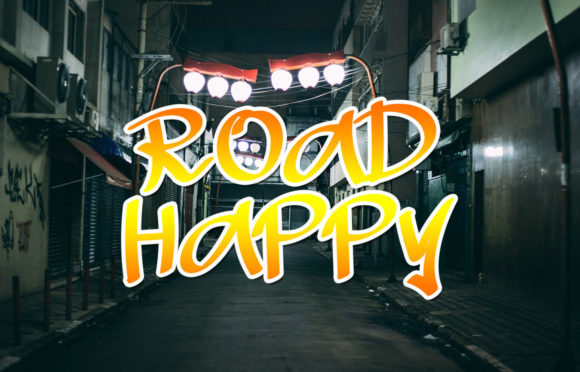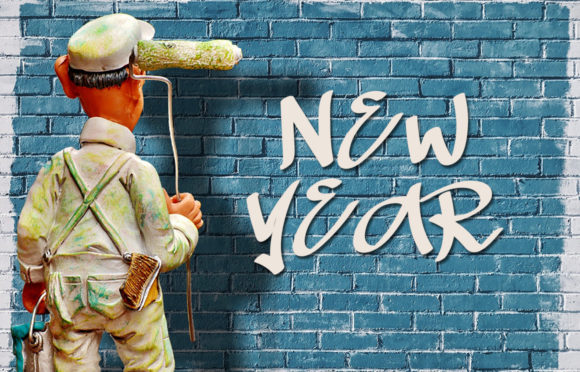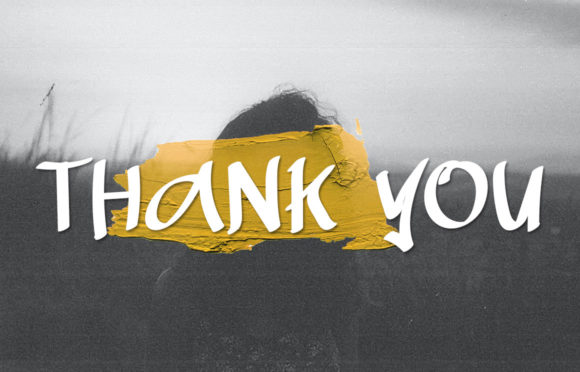
Introducing Black Legal Font: Elevate Your Designs with Elegance and Joy
Are you a designer or crafter looking for a font that can add a touch of sophistication and playfulness to your creative projects? Look no further than Black Legal Font, a bold and beautiful display font that’s perfect for a wide range of applications. In this article, we’ll explore the features and benefits of Black Legal Font, and show you how it can take your designs to the next level.
What is Black Legal Font?
Black Legal Font is a stunning display font that’s characterized by its fresh, clean, and elegant design. It’s a versatile font that can be used for both formal and informal projects, making it a great addition to any designer’s toolkit. Whether you’re creating a logo, brochure, or social media graphic, Black Legal Font is sure to make a lasting impression.
Key Features of Black Legal Font
- Bold and Beautiful: Black Legal Font is a bold and eye-catching font that’s sure to grab attention. Its beautiful design makes it perfect for creating stunning headlines, titles, and graphics.
- Fresh and Clean: The font’s clean design ensures that it looks great on a wide range of products, from digital screens to print materials.
- Elegant and Sophisticated: Black Legal Font has an elegant and sophisticated feel that’s perfect for formal projects, such as luxury brand designs, wedding invitations, and high-end product packaging.
- Versatile: The font is versatile enough to be used for informal projects, such as social media graphics, blog posts, and craft projects.
Benefits of Using Black Legal Font
So, why should you choose Black Legal Font for your design projects? Here are just a few benefits of using this amazing font:
- Adds a Joyful Touch: Black Legal Font has a playful and joyful vibe that’s sure to add a smile to your audience’s faces. It’s perfect for designs that require a bit of personality and whimsy.
- Improves Readability: The font’s clean design ensures that your text is easy to read, even at small sizes. This makes it perfect for body text, captions, and other applications where readability is key.
- Increases Versatility: Black Legal Font can be used for a wide range of projects, from digital designs to print materials. Its versatility makes it a great addition to any designer’s toolkit.
- Enhances Creativity: With Black Legal Font, you can create stunning designs that showcase your creativity and style. Its unique design ensures that your projects will stand out from the crowd.
How to Use Black Legal Font in Your Designs
Using Black Legal Font in your designs is easy. Here are a few tips to get you started:
- Pair it with Other Fonts: Black Legal Font looks great when paired with other fonts. Try pairing it with a clean sans-serif font for a modern look, or with a script font for a more elegant feel.
- Use it for Headlines: Black Legal Font is perfect for headlines and titles. Use it to create stunning headings that grab attention and draw the reader in.
- Experiment with Colors: Black Legal Font looks great in a wide range of colors. Experiment with different colors and gradients to find the perfect look for your design.
- Use it for Branding: Black Legal Font is perfect for branding projects, such as logos, business cards, and letterheads. Its elegant design ensures that your brand will look professional and sophisticated.
| Font Name | Black Legal Font |
| Author | Mr.Soon Design |
In conclusion, Black Legal Font is a stunning display font that’s perfect for designers and crafters looking to add a touch of elegance and joy to their creative projects. Its fresh, clean, and elegant design makes it versatile enough to be used for both formal and informal projects. With its bold and beautiful design, Black Legal Font is sure to take your designs to the next level. So why wait? Download Black Legal Font today and start creating stunning designs that showcase your creativity and style!